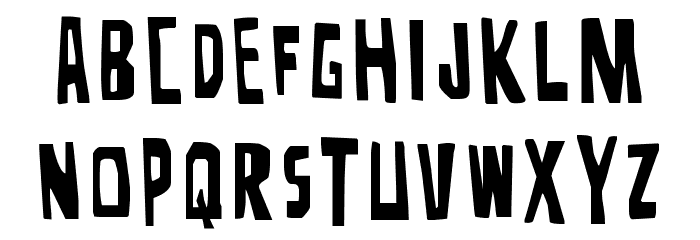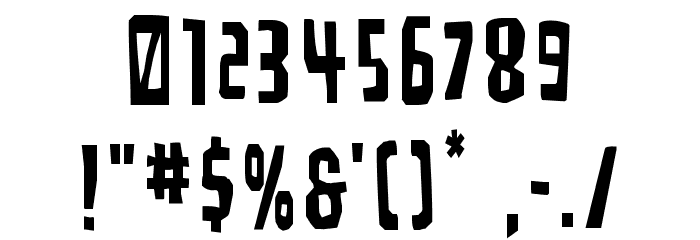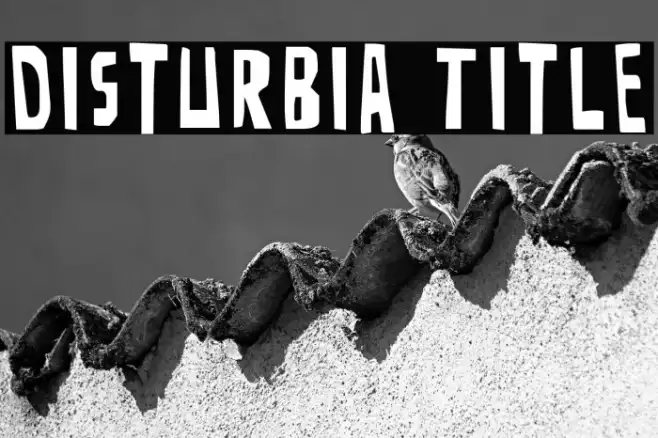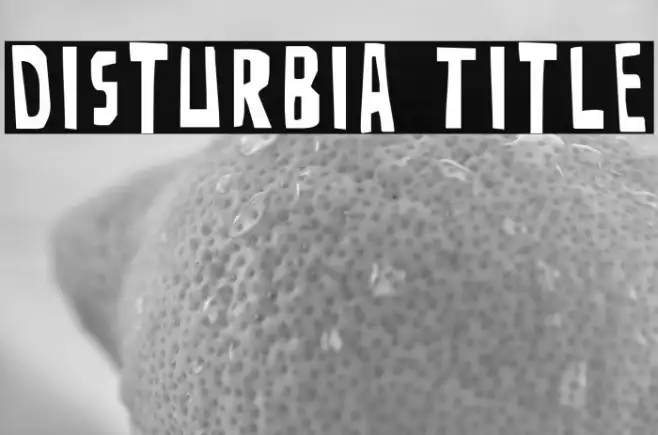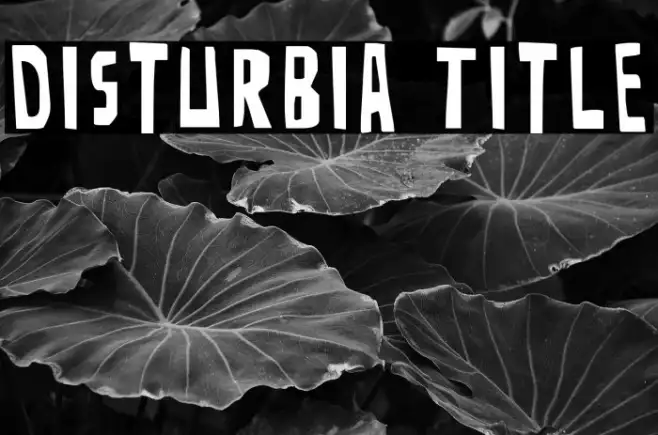
Disturbia Title Font
This font features a bold, irregular style with a slightly distorted appearance, giving it a unique and edgy look. The characters are unevenly shaped, with varying widths and heights, creating a sense of movement and dynamism. The uppercase and lowercase letters maintain a consistent style, with sharp angles and a hand-drawn feel. Numbers and special characters follow the same aesthetic, making the font suitable for creative and unconventional designs. The overall appearance is striking and attention-grabbing, perfect for projects that require a distinctive and bold typeface.
A bold, irregular font with a hand-drawn, edgy style.
- Proposed Projects: Ideal for album covers, movie posters, edgy branding, and creative design projects.
- Overall Style: Modern, Edgy